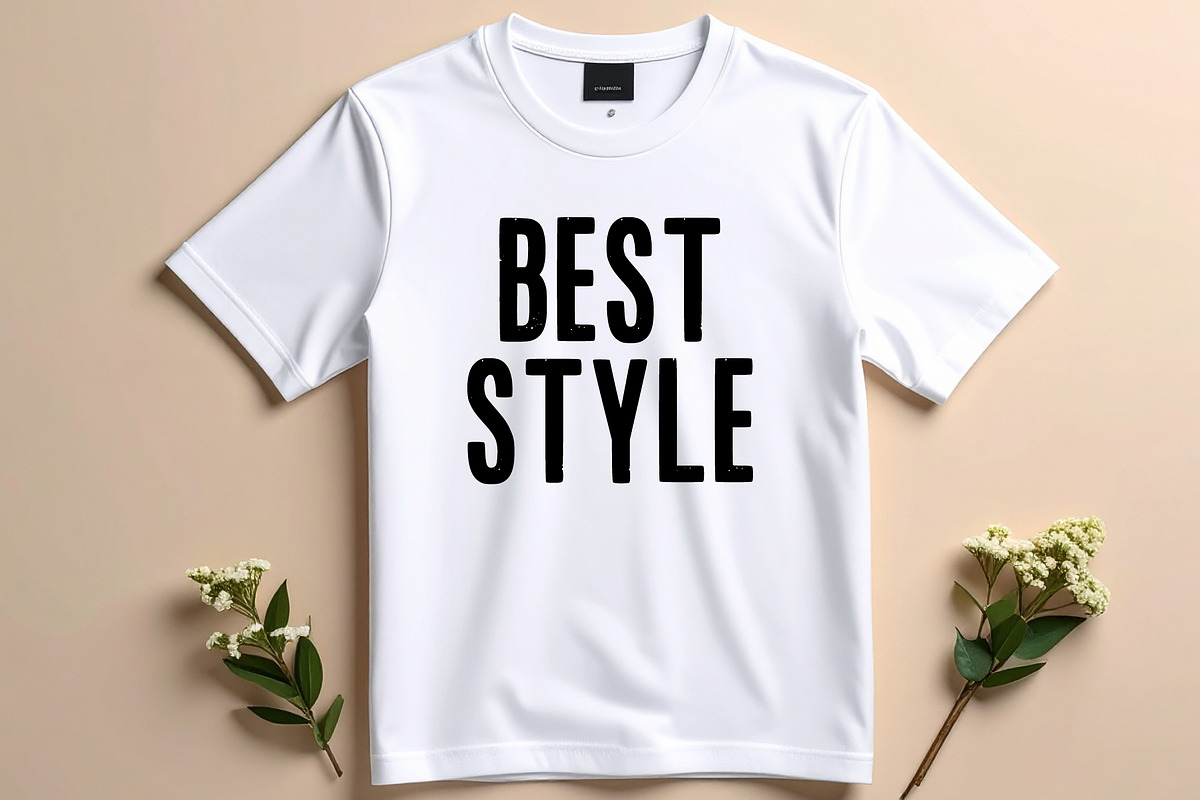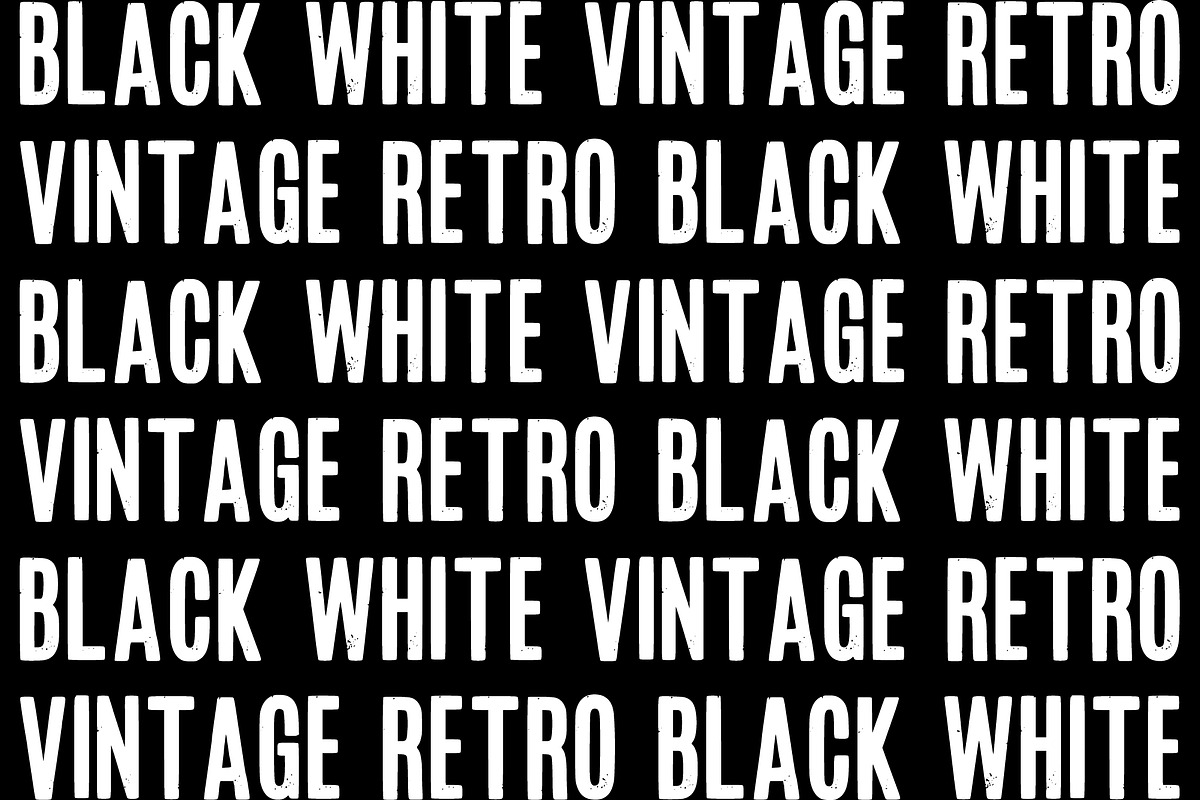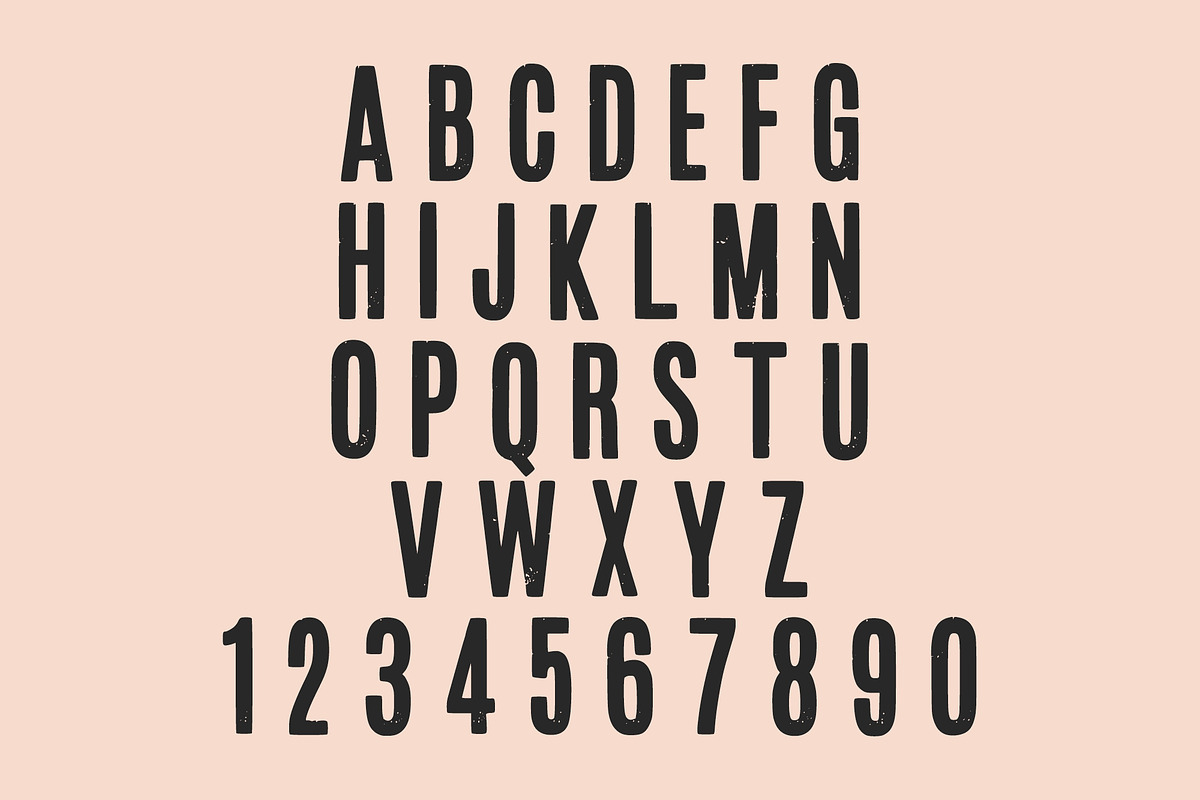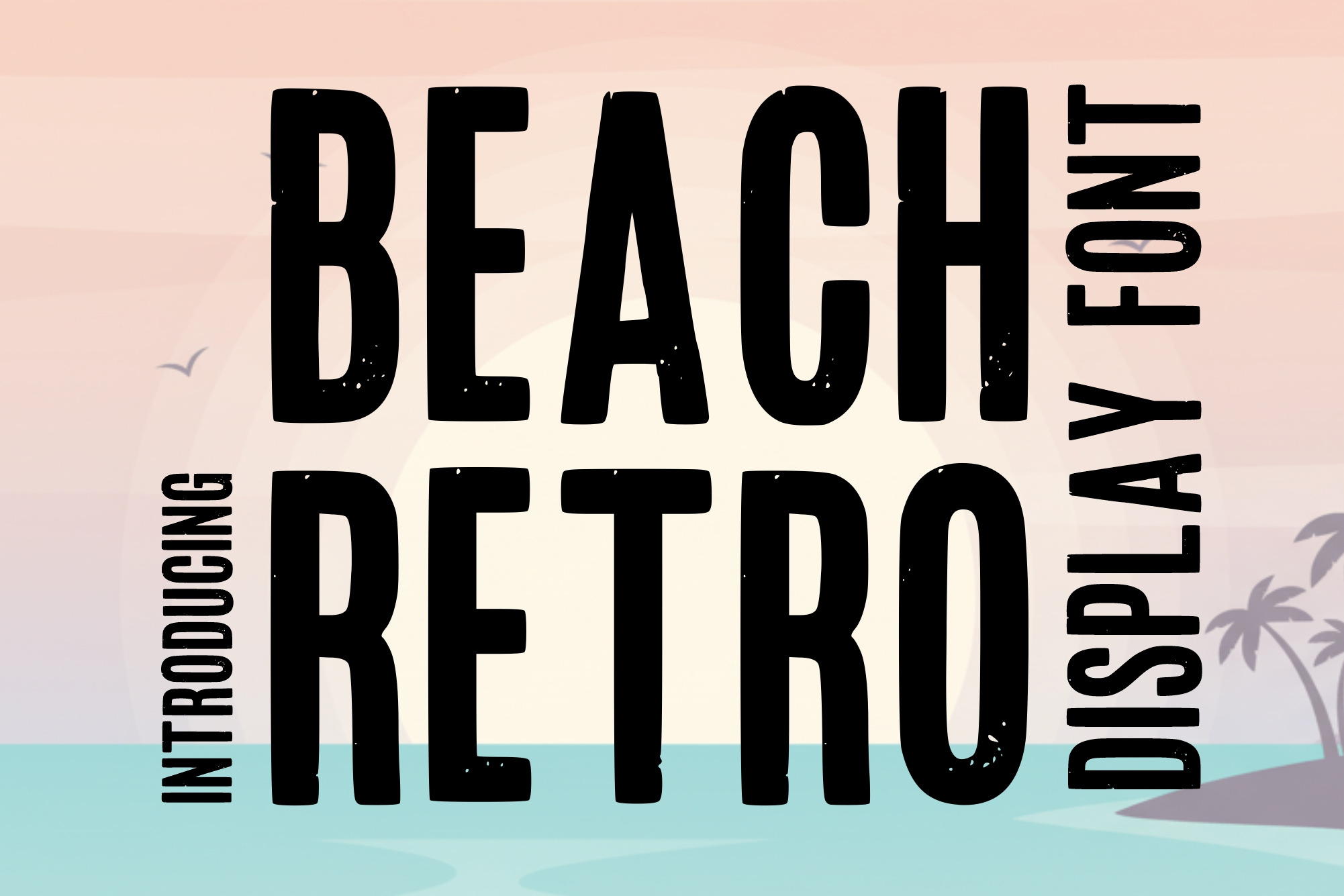
Beach Retro Display Font
Beach Retro Display Font is a bold and stylish typeface inspired by vintage beach posters and tropical summer vibes. Featuring tall, clean letterforms with a subtle distressed texture, this font brings a relaxed yet eye-catching look to your designs. Perfect for beach-themed graphics, summer posters, travel branding, logos, t-shirt designs, packaging, and social media content. Its retro aesthetic and tropical atmosphere make it ideal for creative projects that want to capture the feeling of sun, sea, and summer adventures.